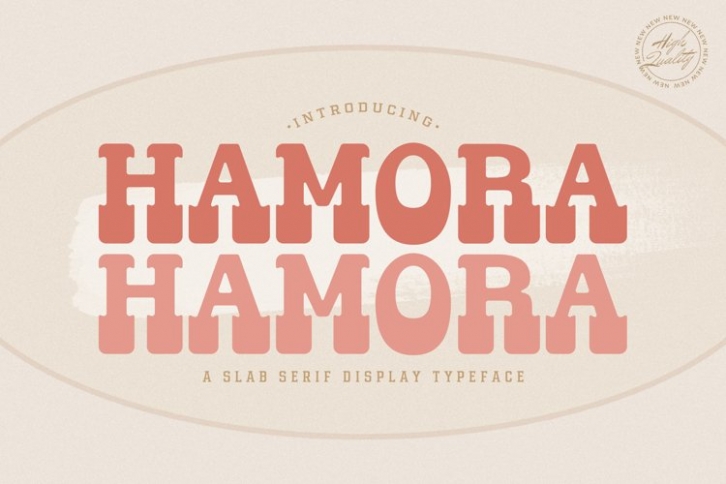
Hamora FONT Download
Hamora is a gorgeous font that was realeased on November 5, 2021. The font can be used in many style contexts and design environments. Perfect for invitations, magazines, websites, logos, and more! It was designed by plusstore and the file size is 16.76 MB. Thanks for checking out this font!